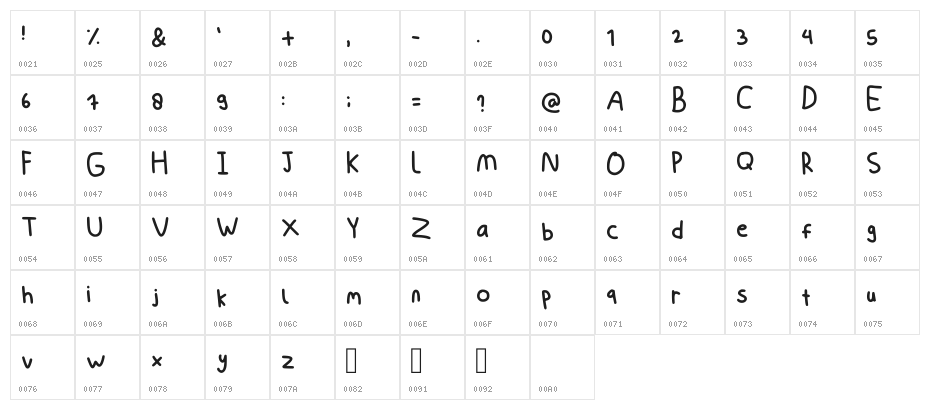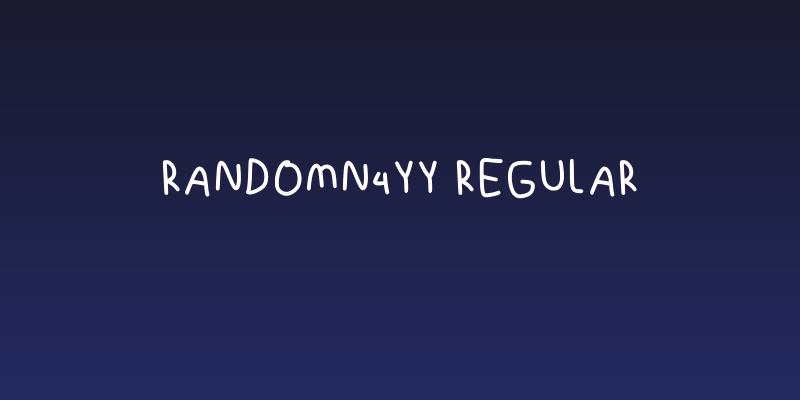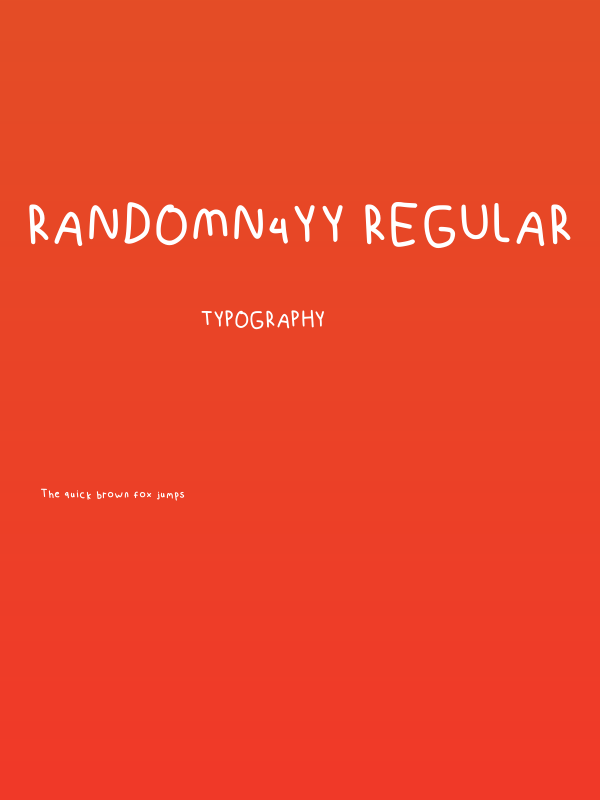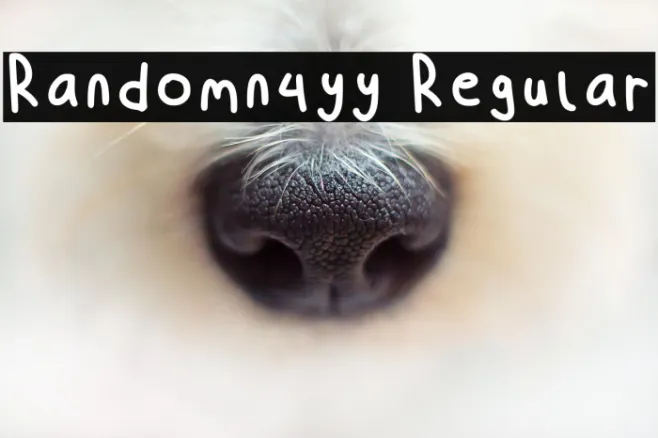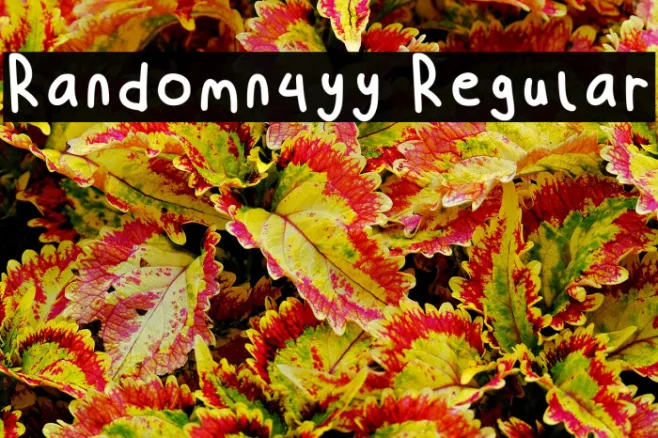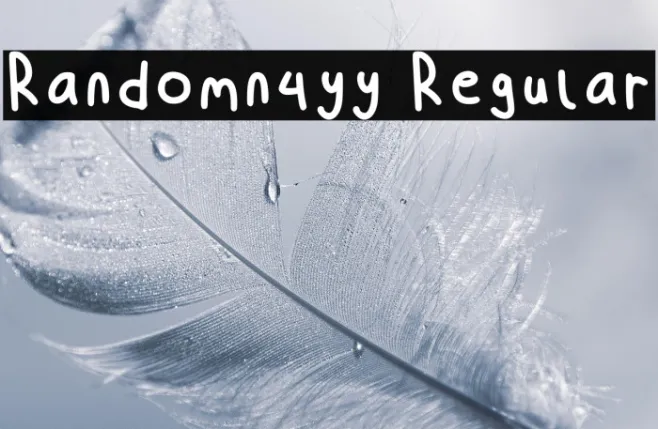
Randomn4yy Regular Font
Randomn4yy Regular Description
This font features a playful and informal handwritten style, characterized by its rounded and slightly irregular letterforms. The strokes are consistent in width, giving it a uniform appearance, while the slight tilt and varying heights add a whimsical touch. The font maintains a casual and approachable feel, making it suitable for projects that require a personal or friendly tone. The numerals and special characters follow the same style, ensuring cohesion across different text elements.
| Use Case | Headlines, Informal text, Branding |
| Proposed Projects | Ideal for children's books, greeting cards, casual invitations, and playful branding. |